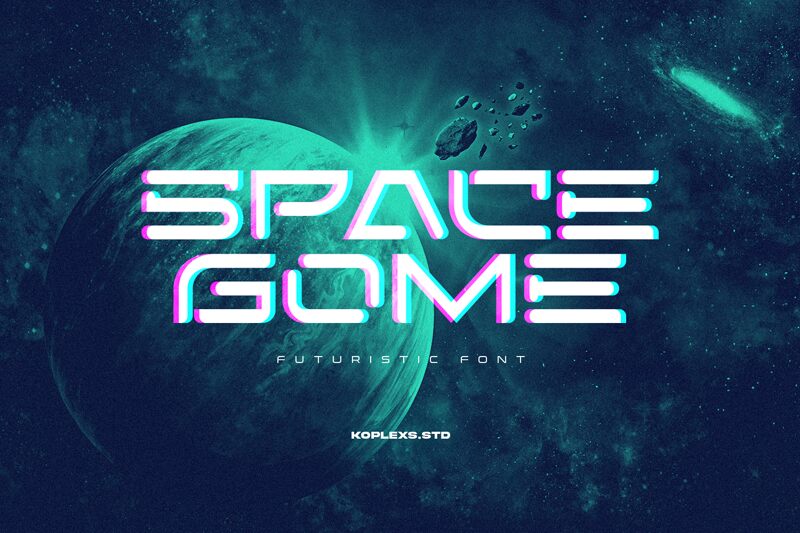
Space Gome
Space Gome font by Koplexs Studio is a free bold futuristic display font. Built around flowing, ribbon-like strokes with precise cut-ins, it turns each letter into a streamlined module. The squared curves and bevelled joints create a sleek, aerospace rhythm—techy without feeling cold. Extended horizontals and crisp, uniform weight make headlines read like a clean circuit path.
Using Space Gome, your titles snap into focus on game logos, sci‑fi posters, esports branding, tech event banners, streaming overlays, gadget packaging, and cinematic title cards. This free font wants space to breathe—set it large and track slightly wider for maximum impact. For supporting text, pair with a neutral geometric sans to keep the spotlight on those futuristic contours.